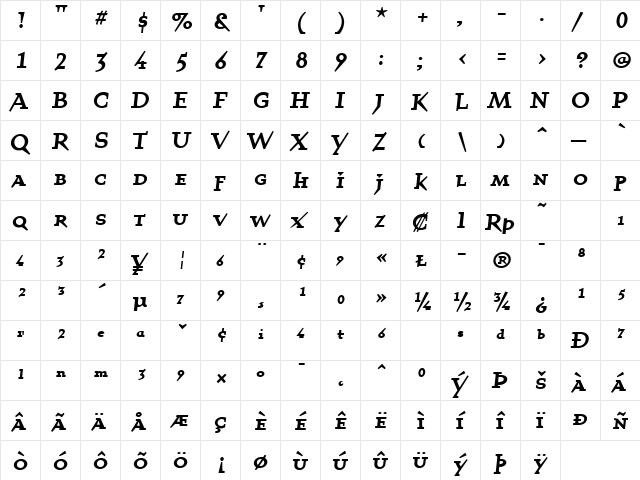
QuartetSmallcapsBold Bold
Design Context for QuartetSmallcapsBold Typeface
QuartetSmallcapsBold takes a measured approach to typography — its balanced proportions and neutral character make it a reliable workhorse for both digital and print work. Its bold stroke weight gives it real presence on the page.